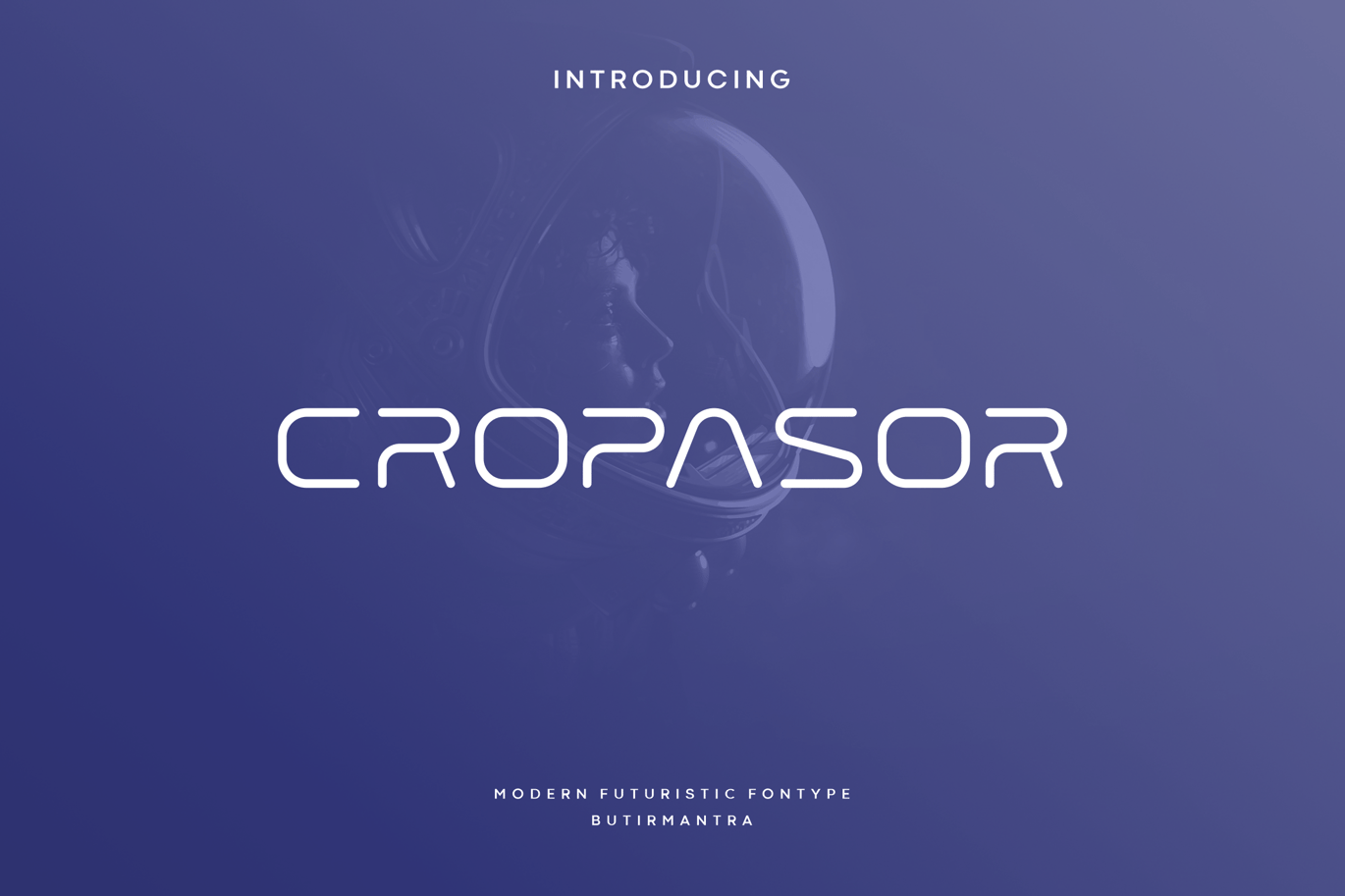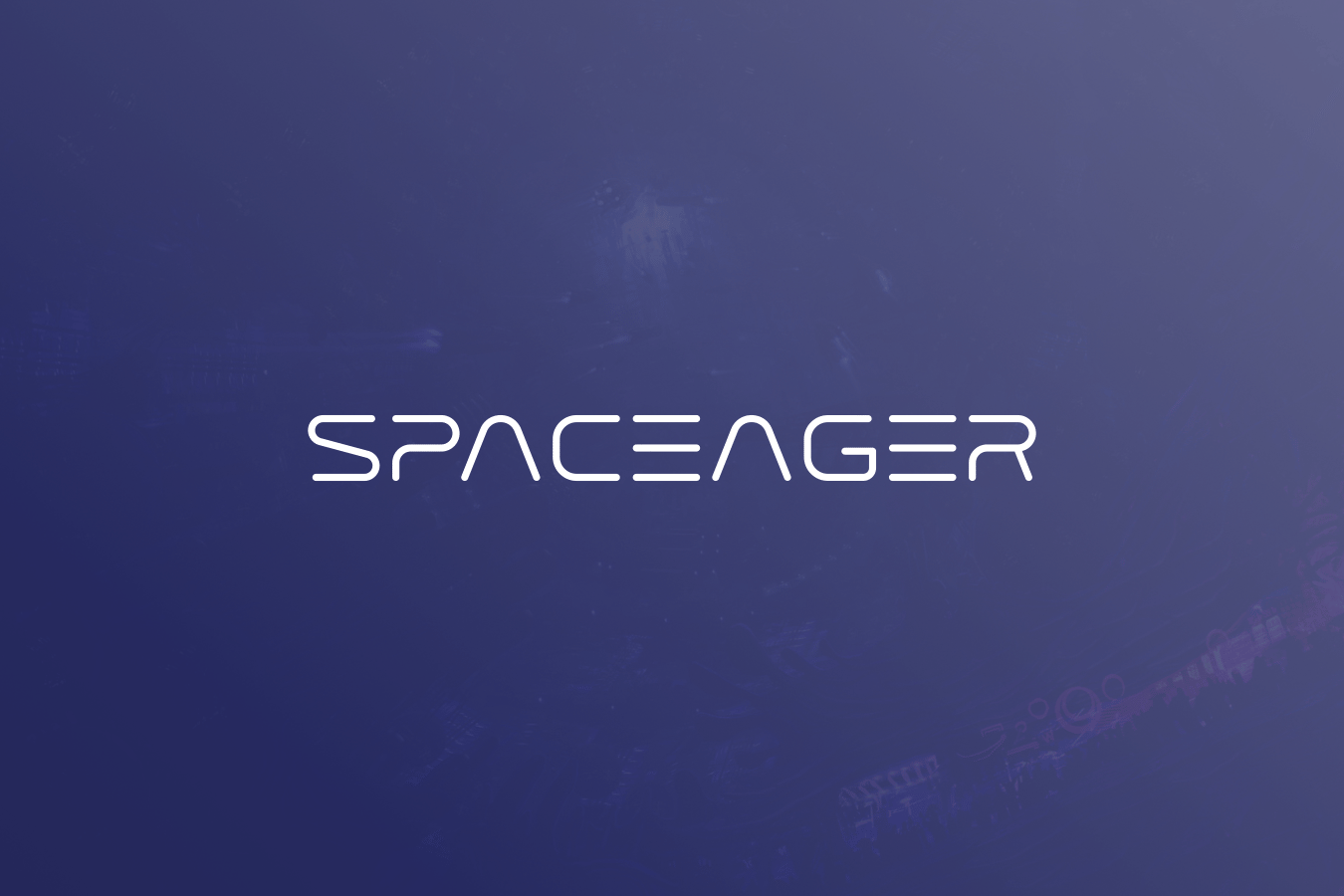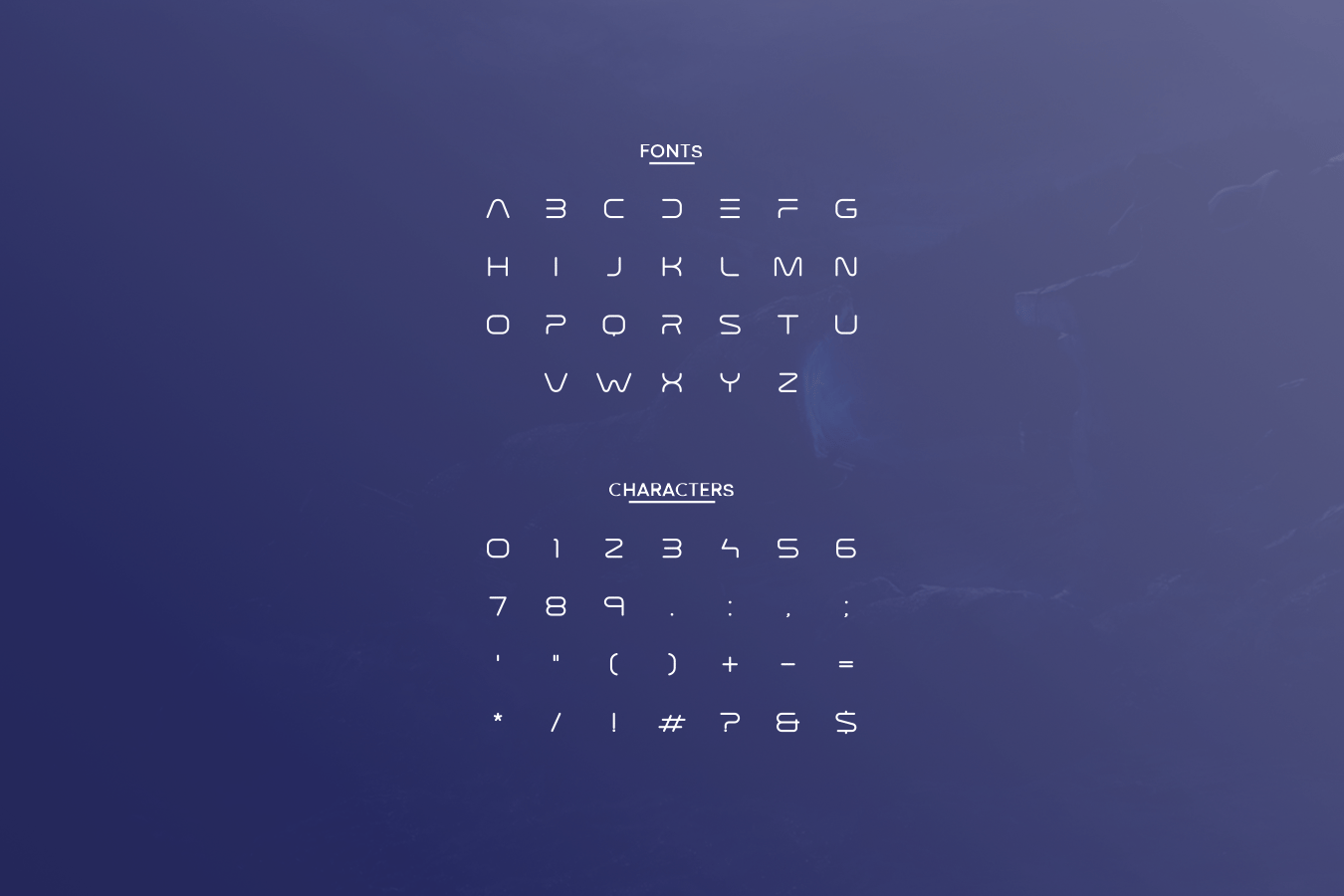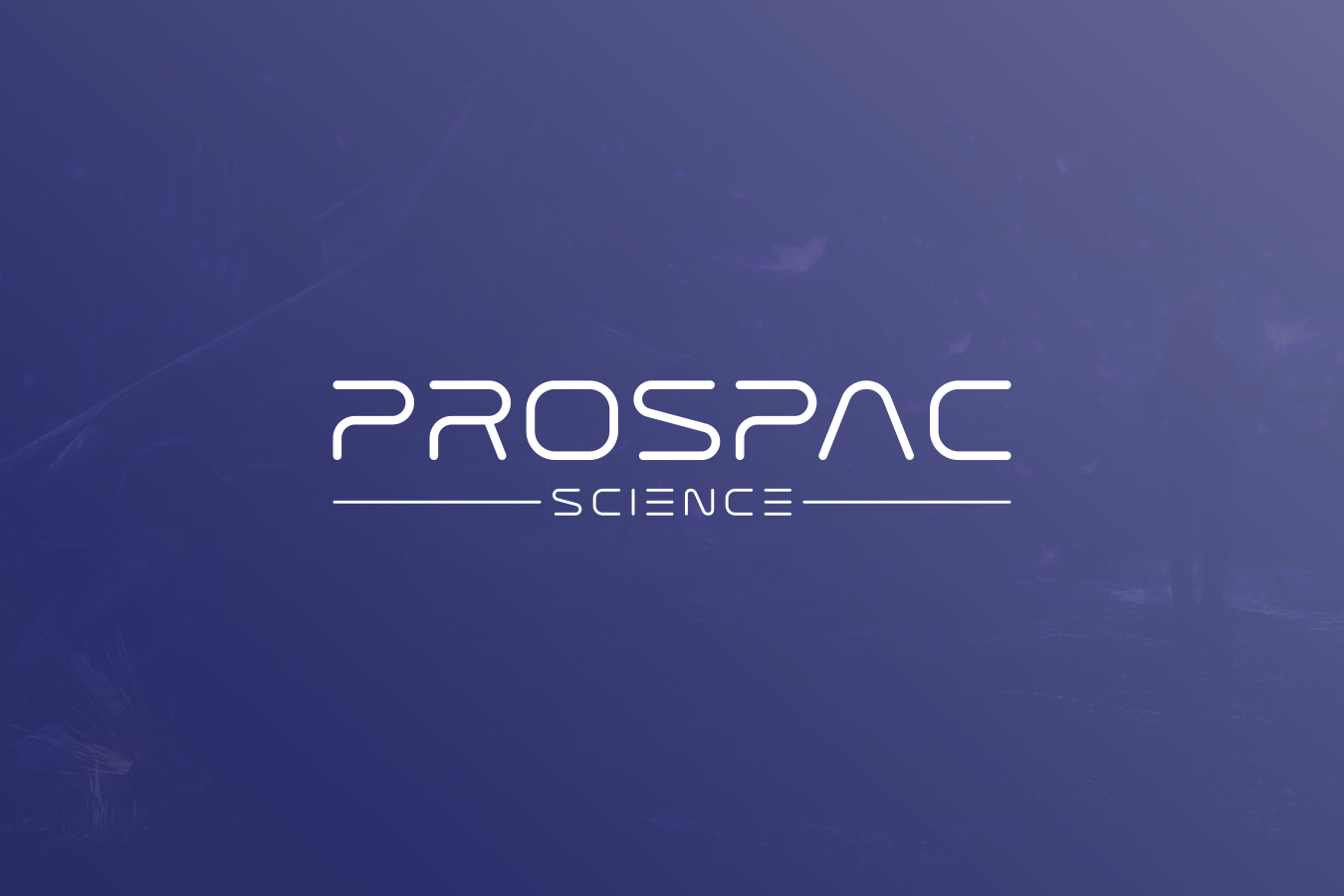
Cropasor – Futuristic Font
Cropasor is a modern, elegant and futuristic looking font, with a thinner and contemporary version. This font would be ideal for writing web designs, business cards, or anything else that requires a unique touch in a sleek, modern format. With sophisticated concepts and very elegant shapes that will look modern on future technological designs, don’t hesitate to have this font, grab it and use your creativity.